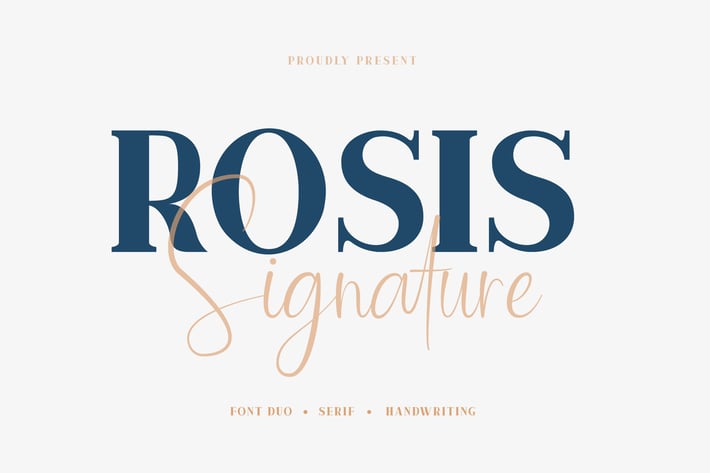
Rosis & Ballroom - Font Duo
Rosis & Ballroom is a premium font duo combining a bold display serif with a flowing handwritten script. Designed for modern logos, luxury branding, and wedding stationery, this pairing delivers a sophisticated contrast that works beautifully across print and digital projects.
- 2 font duo: Rosis (bold display serif) + Ballroom (flowing script/handwriting)
- Full uppercase and lowercase characters
- Numbers and punctuation
- Multilingual support with extended Latin characters
- OpenType features included